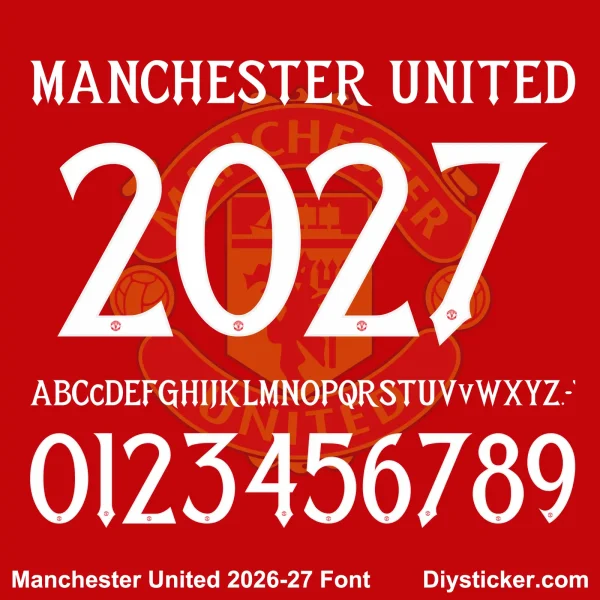
Bring the iconic look of Old Trafford to your creative projects with the ultimate Manchester United 2026-2027 Font digital download. As the Red Devils gear up for another thrilling football season, this premium typography package provides graphic designers, jersey printers, and passionate football fans with the exact lettering and numbering style used by the club. Whether you are creating custom jerseys, social media graphics, matchday posters, or fan merchandise, this vector font bundle ensures crisp, professional results at any scale.
Engineered for Football Kit Customization
This is the ultimate resource for custom apparel shops and jersey collectors. The Man United 2026 2027 jersey font TTF file features the distinct, sharp angles and athletic geometry seen on the club’s newest kits. By downloading the Manchester United 2026-27 kit font download package, you gain access to the complete A-Z character set (including unique upper and lowercase variations) and the full 0-9 numbering sequence complete with the internal crest detailing.